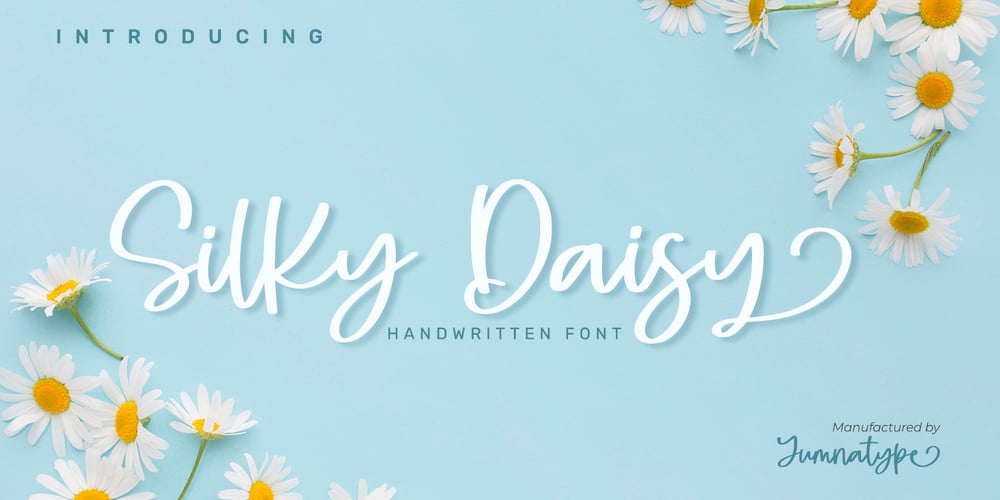
Silky Daisy Font Family was designed by Donis Miftahudin and published by Yumna Type. Silky Daisy contains 1 styles and family package options. Silky Daisy is a elegant handwritten font. Made for any professional project branding. It is the best for logos, branding and quotes. Every letter has a unique and beautiful touch.Includes:Silky Daisy (OTF)Features: Standard Ligatures Alternates PUA Encoded Multilingual Support Numerals and Punctuation by Yumnatype